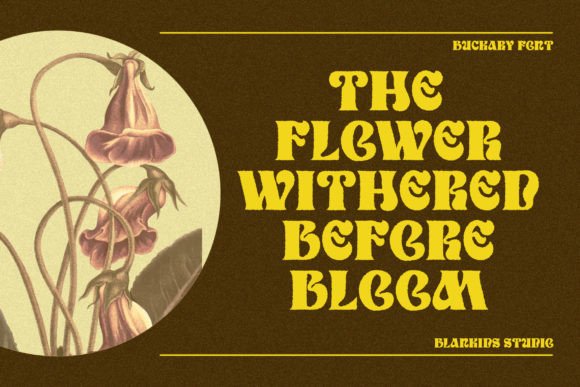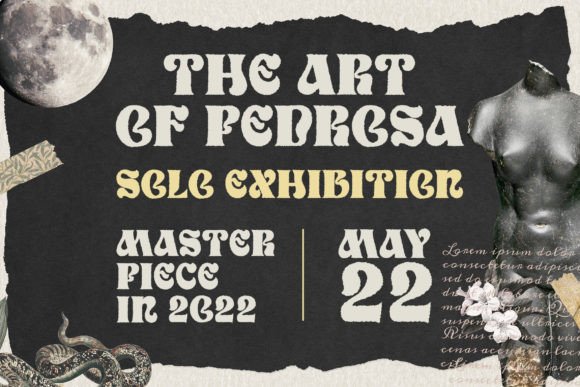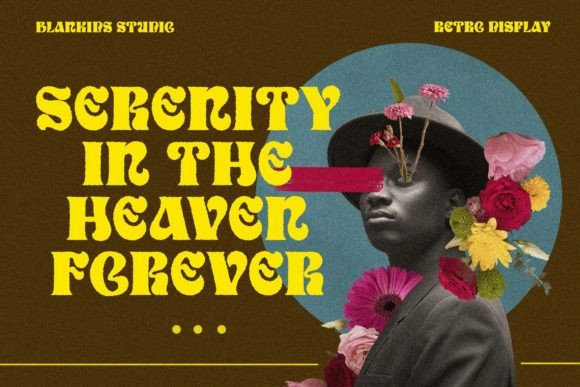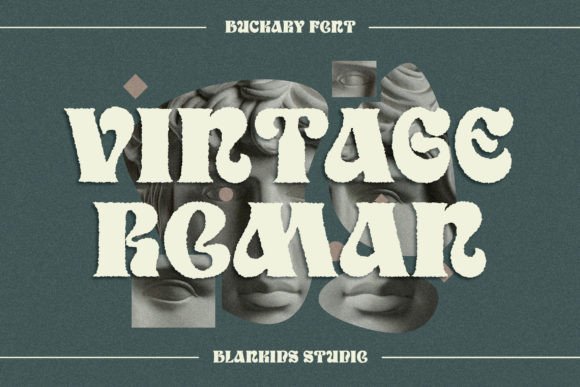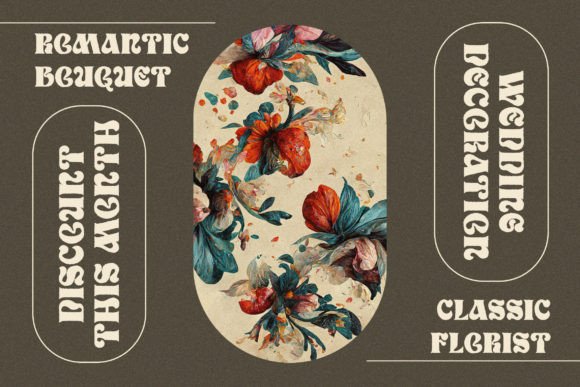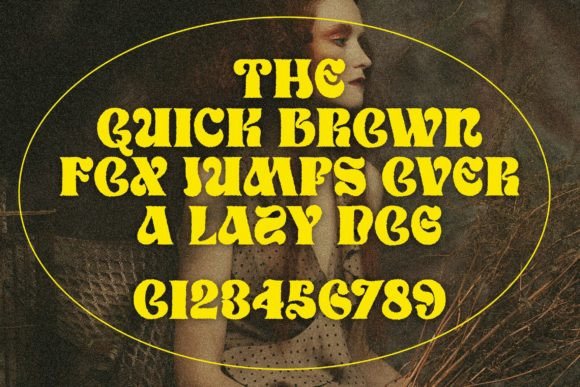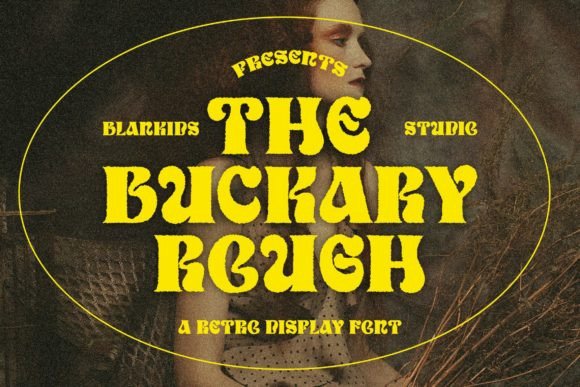
Introducing Buckary Font: Elevate Your Designs with a Stylish, Intricate, Retro Display Font
Are you tired of using the same old fonts in your designs? Do you want to add a touch of uniqueness and personality to your projects? Look no further than Buckary Font, a stylish, intricate, retro display font that’s sure to make your designs shine. With its uniquely shaped characters, Buckary Font is perfect for creating stunning, original designs that will leave a lasting impression.
What Makes Buckary Font So Special?
Buckary Font is a one-of-a-kind font that’s been carefully crafted to bring a touch of retro charm to your designs. Its intricate details and uniquely shaped characters make it stand out from the crowd, giving you the opportunity to create designs that are truly one-of-a-kind. Whether you’re working on a logo, a poster, or a social media graphic, Buckary Font is the perfect choice.
Key Features of Buckary Font
- Stylish and Intricate Design: Buckary Font features a stylish and intricate design that’s perfect for creating stunning, original designs.
- Retro Display Font: With its retro charm, Buckary Font is perfect for adding a touch of nostalgia to your designs.
- Uniquely Shaped Characters: Each character in Buckary Font has been carefully crafted to ensure that your designs stand out from the crowd.
- Perfect for a Variety of Projects: Whether you’re working on a logo, a poster, or a social media graphic, Buckary Font is the perfect choice.
How to Use Buckary Font in Your Designs
- Use it as a Title Font: Buckary Font is perfect for use as a title font, adding a touch of style and sophistication to your designs.
- Experiment with Different Colors: Buckary Font looks great in a variety of colors, so don’t be afraid to experiment and find the perfect color for your design.
- Pair it with Other Fonts: Buckary Font pairs well with a variety of other fonts, so try pairing it with a simpler font to create a stunning contrast.
Benefits of Using Buckary Font
There are many benefits to using Buckary Font in your designs. Here are just a few:
- Adds a Touch of Uniqueness: Buckary Font adds a touch of uniqueness to your designs, setting them apart from the crowd.
- Perfect for Retro-Inspired Designs: If you’re looking to create a retro-inspired design, Buckary Font is the perfect choice.
- Increases Design Quality: Buckary Font is a high-quality font that’s sure to increase the overall quality of your designs.
Who Can Benefit from Using Buckary Font?
Buckary Font is perfect for a variety of designers and crafters, including:
- Graphic Designers: Buckary Font is perfect for graphic designers looking to add a touch of style and sophistication to their designs.
- Logotype Designers: If you’re looking to create a unique and memorable logo, Buckary Font is the perfect choice.
- Crafters: Buckary Font is also perfect for crafters who want to add a touch of personality to their projects.
In conclusion, Buckary Font is a stylish, intricate, retro display font that’s perfect for creating stunning, original designs. With its uniquely shaped characters and retro charm, Buckary Font is sure to make your designs shine. Whether you’re a graphic designer, a logotype designer, or a crafter, Buckary Font is the perfect choice. So why wait? Download Buckary Font today and start creating designs that are truly one-of-a-kind.